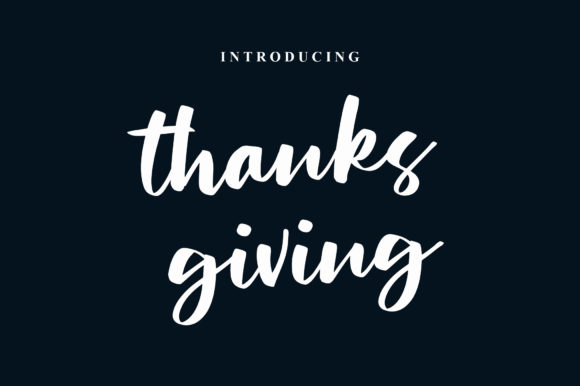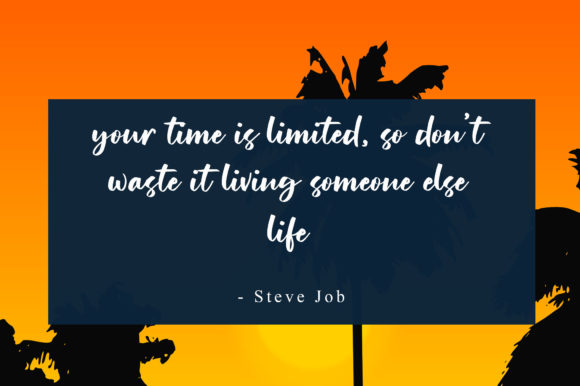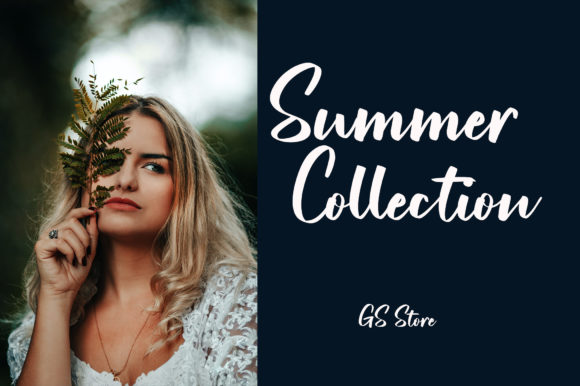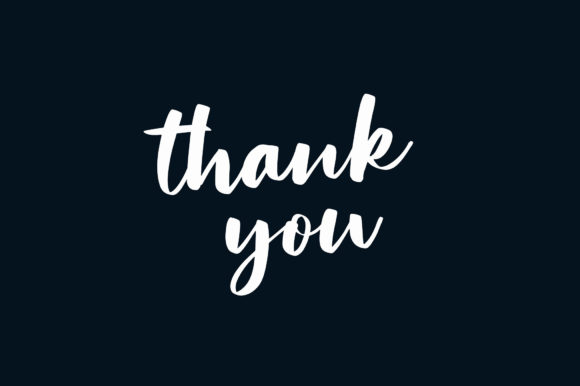
Thanks Giving Font
About Thanks Giving Font
Thanks Giving is a lovely script font featuring charming, playful characters that seem to dance along the baseline. Add this font to your most creative ideas, and notice how it makes them stand out!